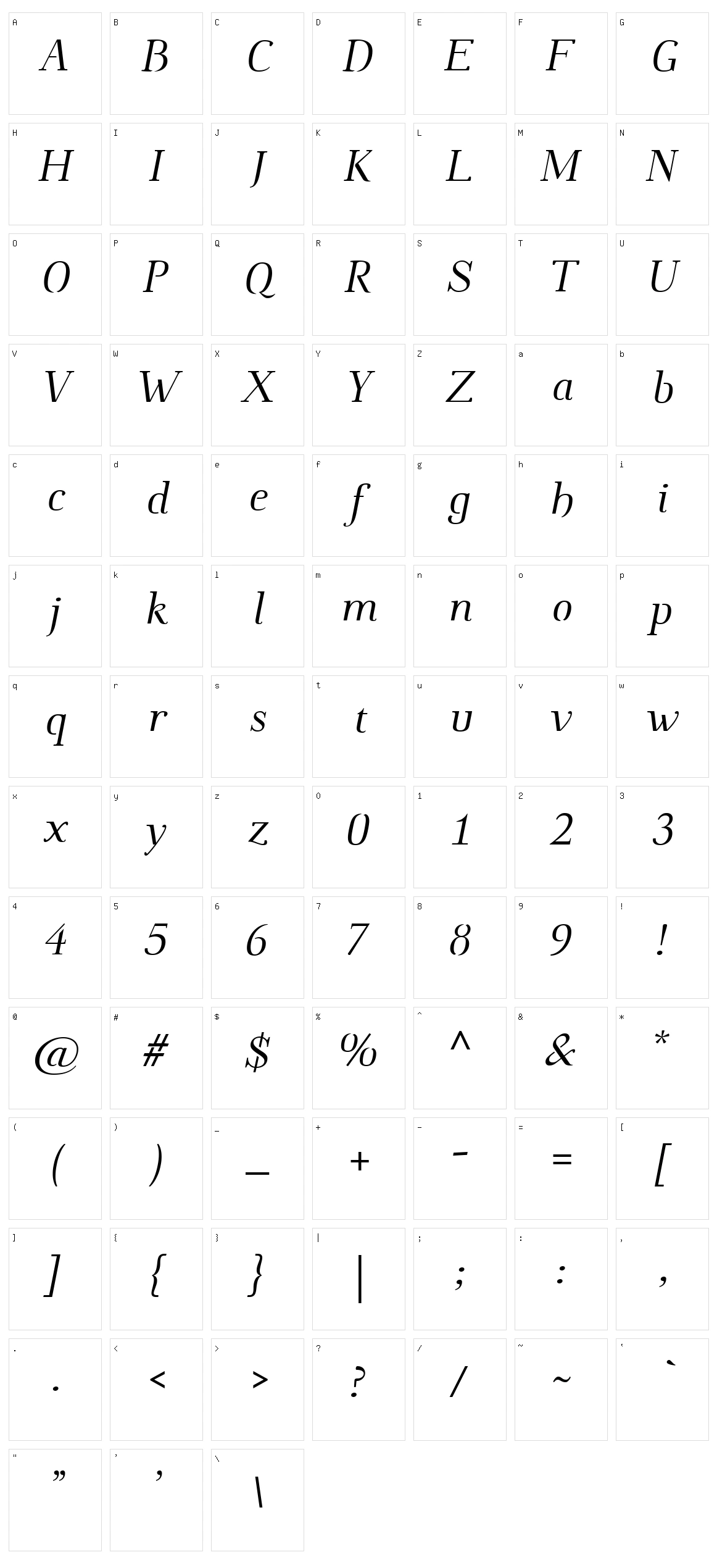
Thanks for download a free* version of 'Omologo', a brand new Serif Semi Stencil font family based on "old style" typography, translated in modern era with Unconventional number of LIGATURE. A mix of geometric forms, antique ligature and oblsolete (or forget?) gliphs.
Currently it comes in 2 styles: round and italic.
Each weight includes extended language support, ligatures and up to 640 gliph (2000 gliphs in the complete version).
Standard ligature (liga)
Lining + Oldstyle figure linear or tabular (lnum, onum)
Numerator + Denominator + Subscript + Superscript (pnum, tnum, sups, subs)
Fraction (frac)
Kerning table (kern)
Discretionary ligature (dlig)
Alternative style set (ss01, ss02)
Small capital (c2sc, smcp)
Omologo is incredibly useful on most of creative field like magazine, poster, book, composition and it's a great ingredient to have in every kitchen!